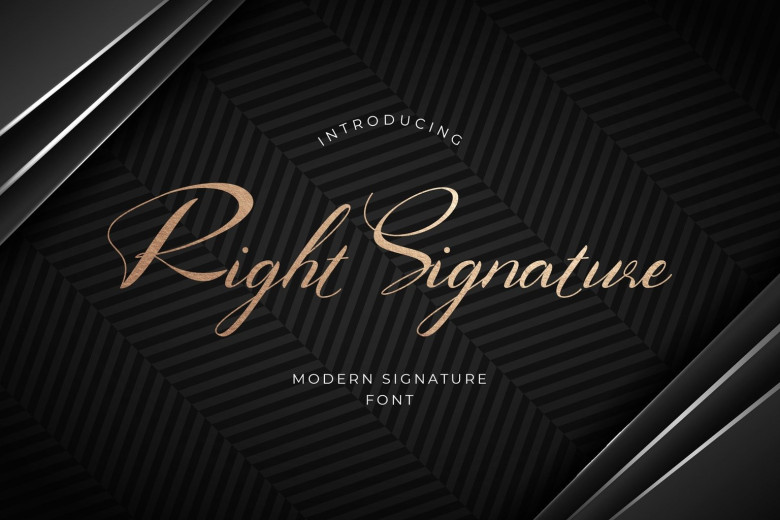
Right Signature Script Font
Right Signature Script Font is a stylish modern font duo consisting of a natural handwritten script and a refined, elegant serif font. Each typographic and ligature section in this font represents signature characteristics such as the use of uppercase letters at the beginning of writing, which gives an interesting impression, then a series of continuous small letters that flow with the same rhythm, and end with a long horizontal line and firm, allowing you do titling and swash easily.
This font also represents the characteristics of handwriting, which is a combination of basic fonts with different curves and shapes, so it will look natural and real. It is suitable for crafts, photography, watermarks, fashion, social media posts, advertisements, logos & branding, invitations, product designs, labels, stationery, product packaging, special events, etc.